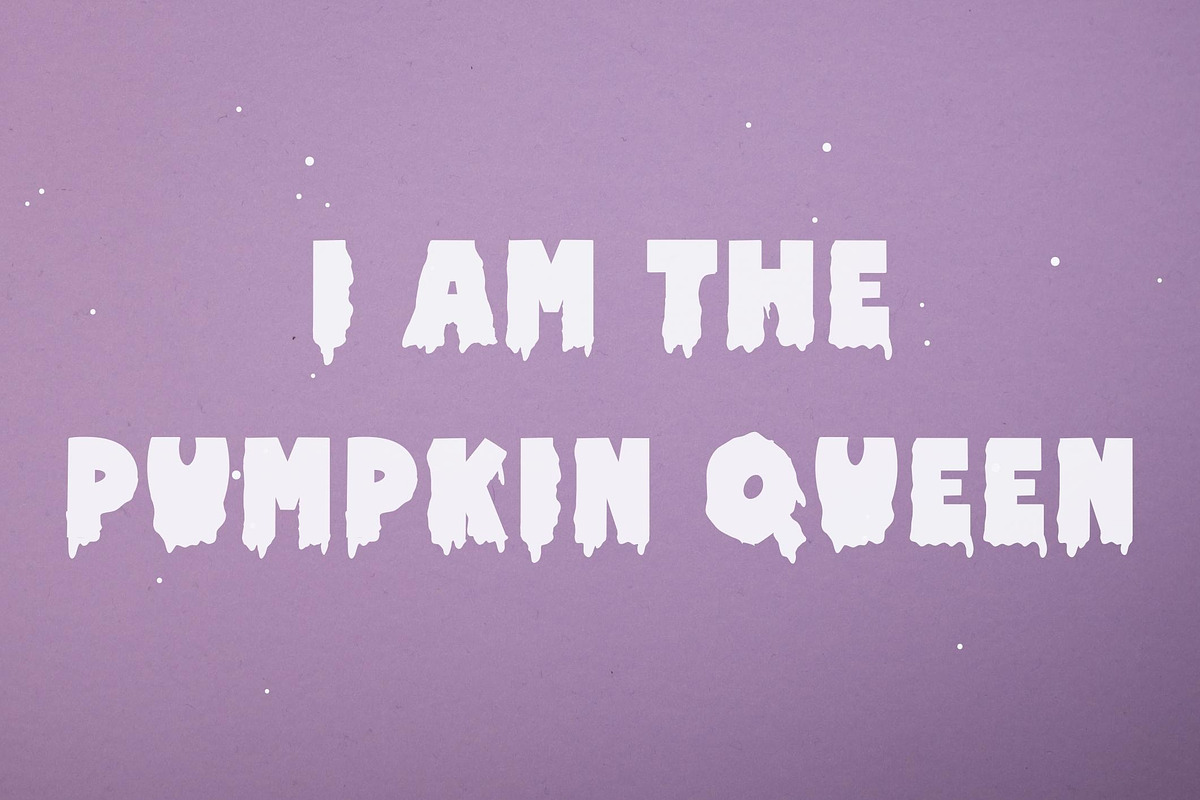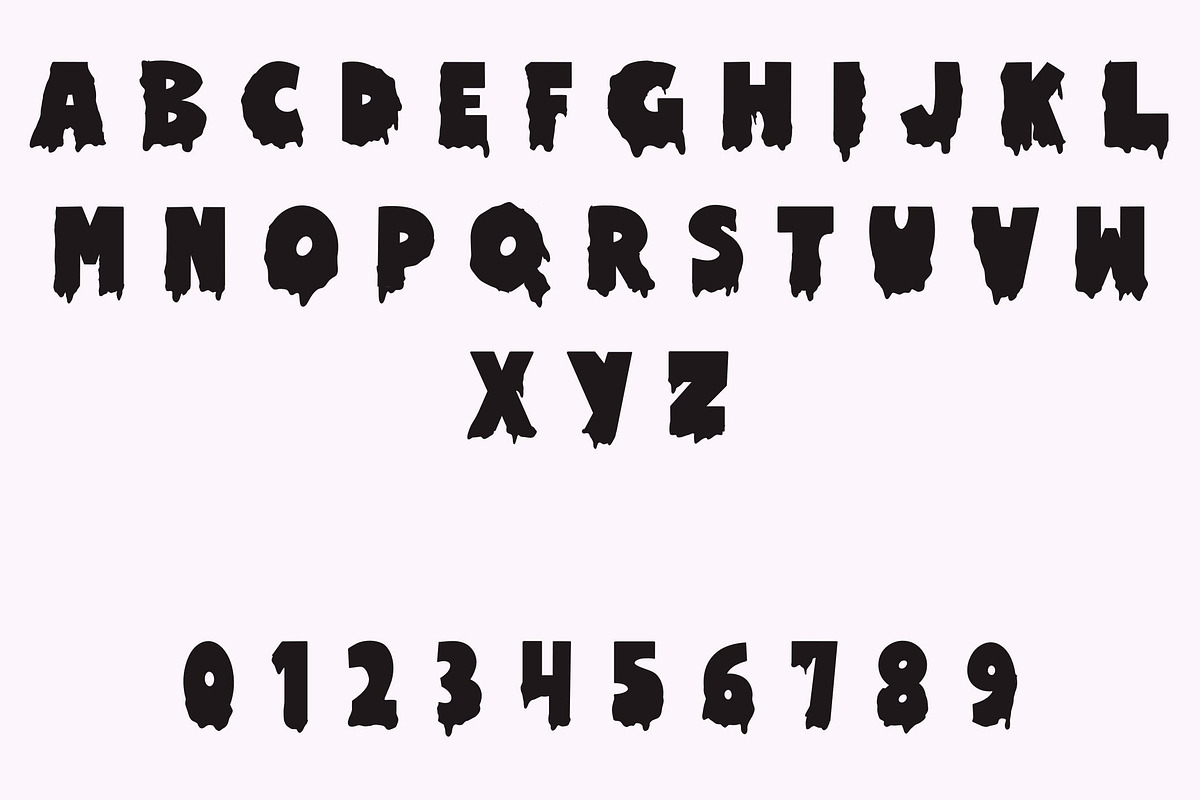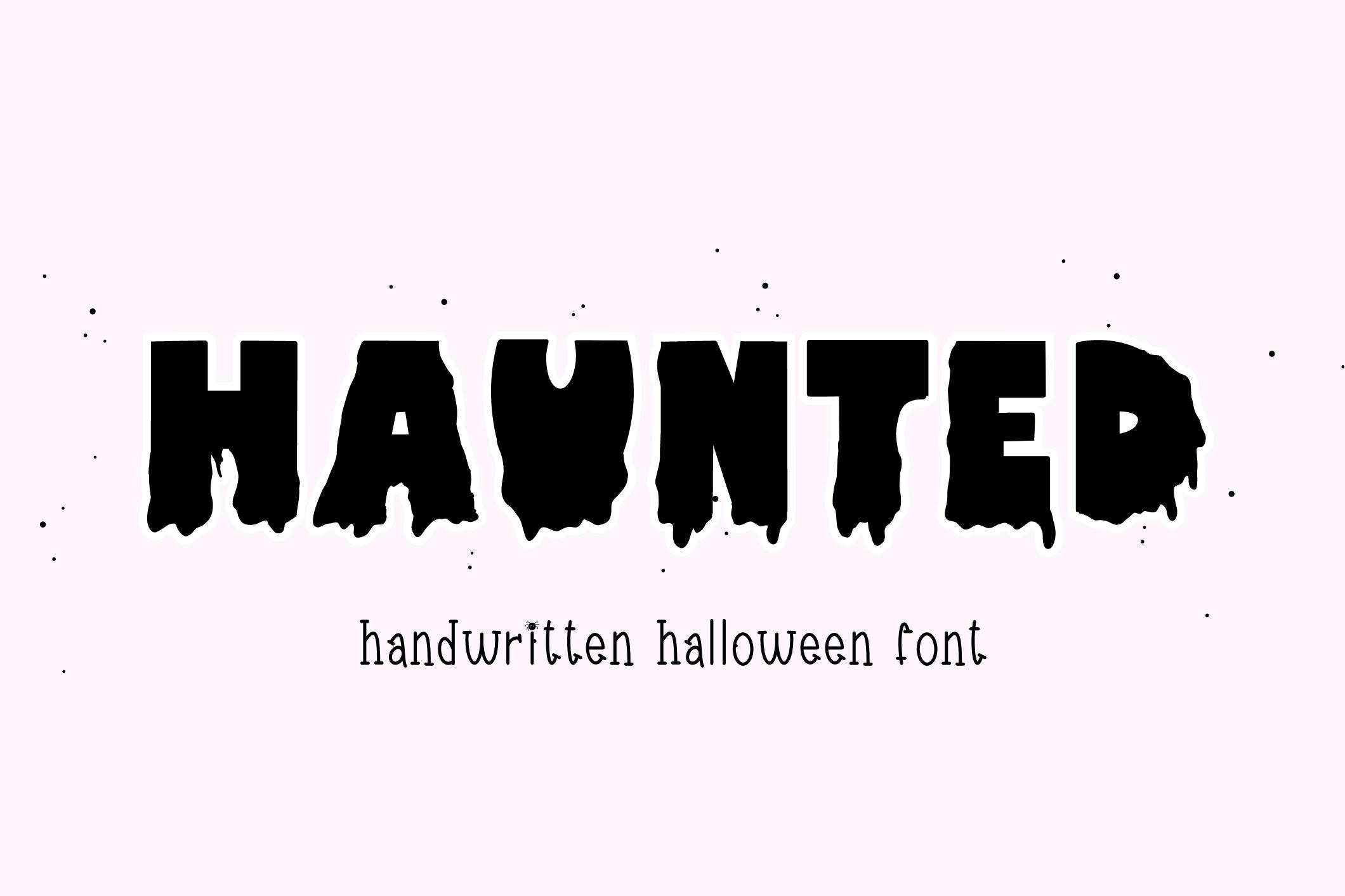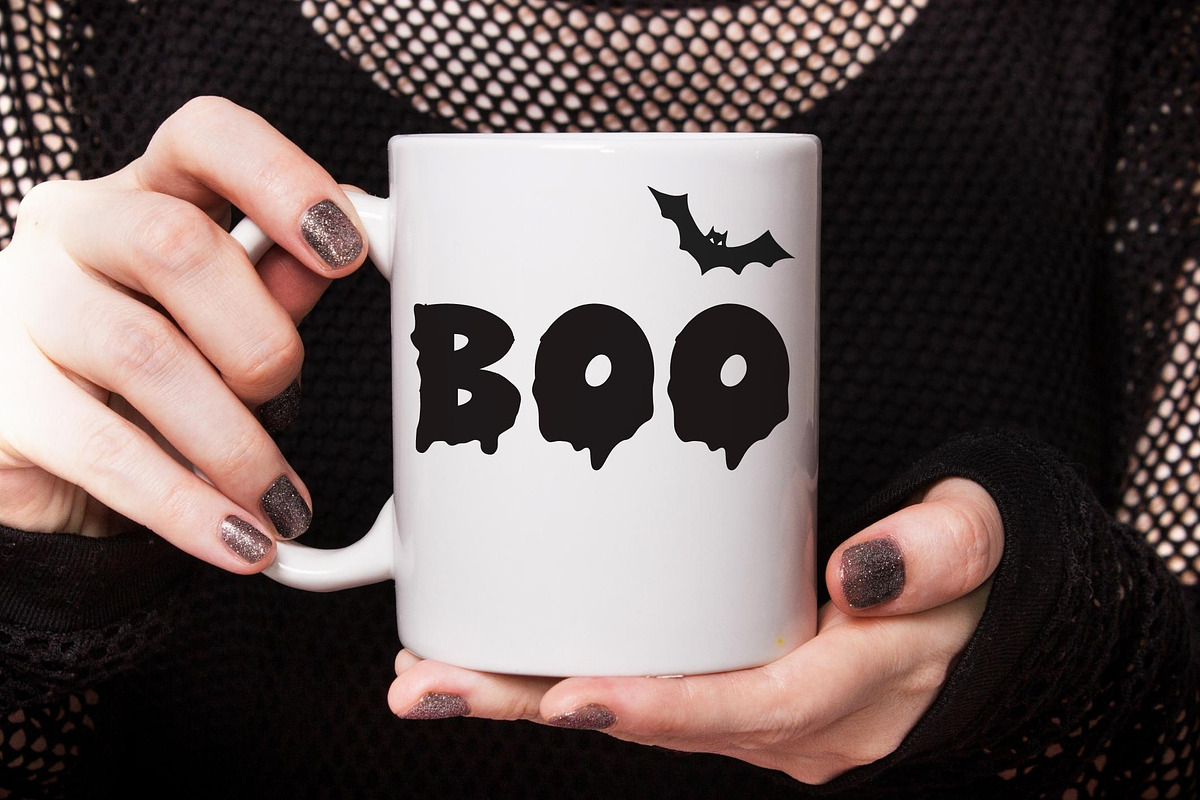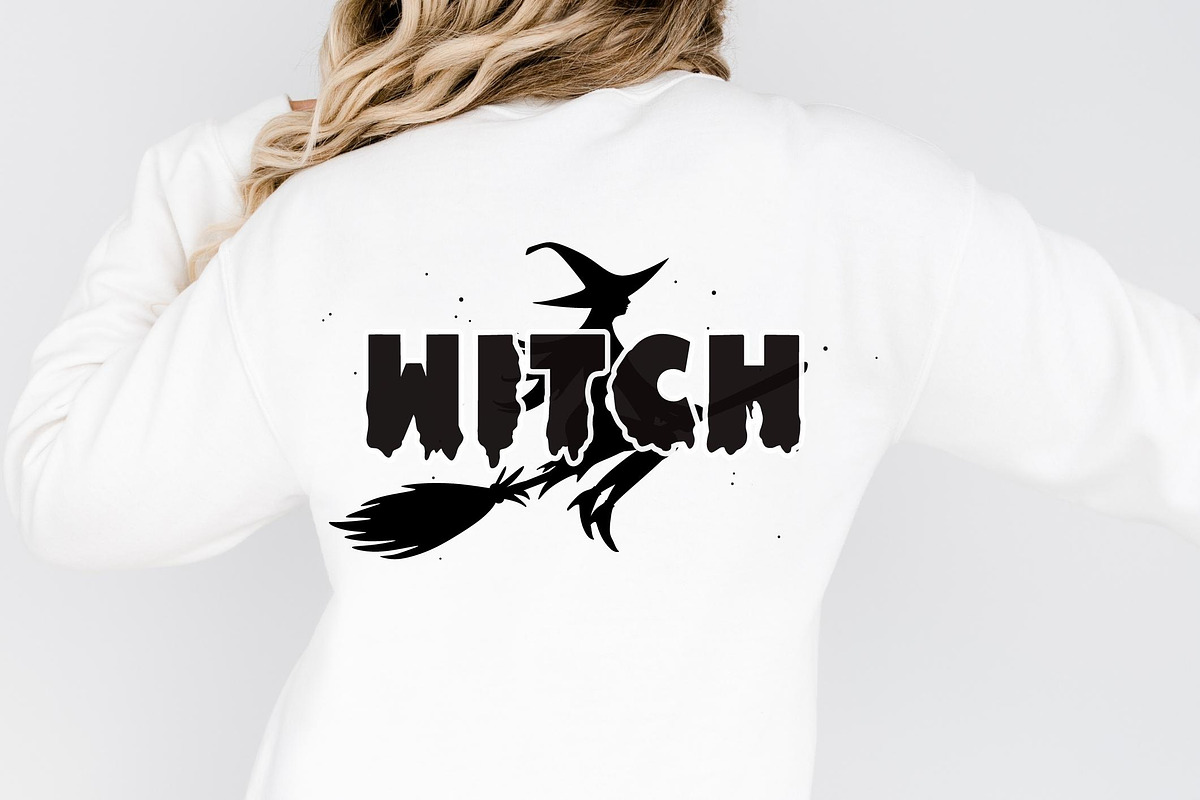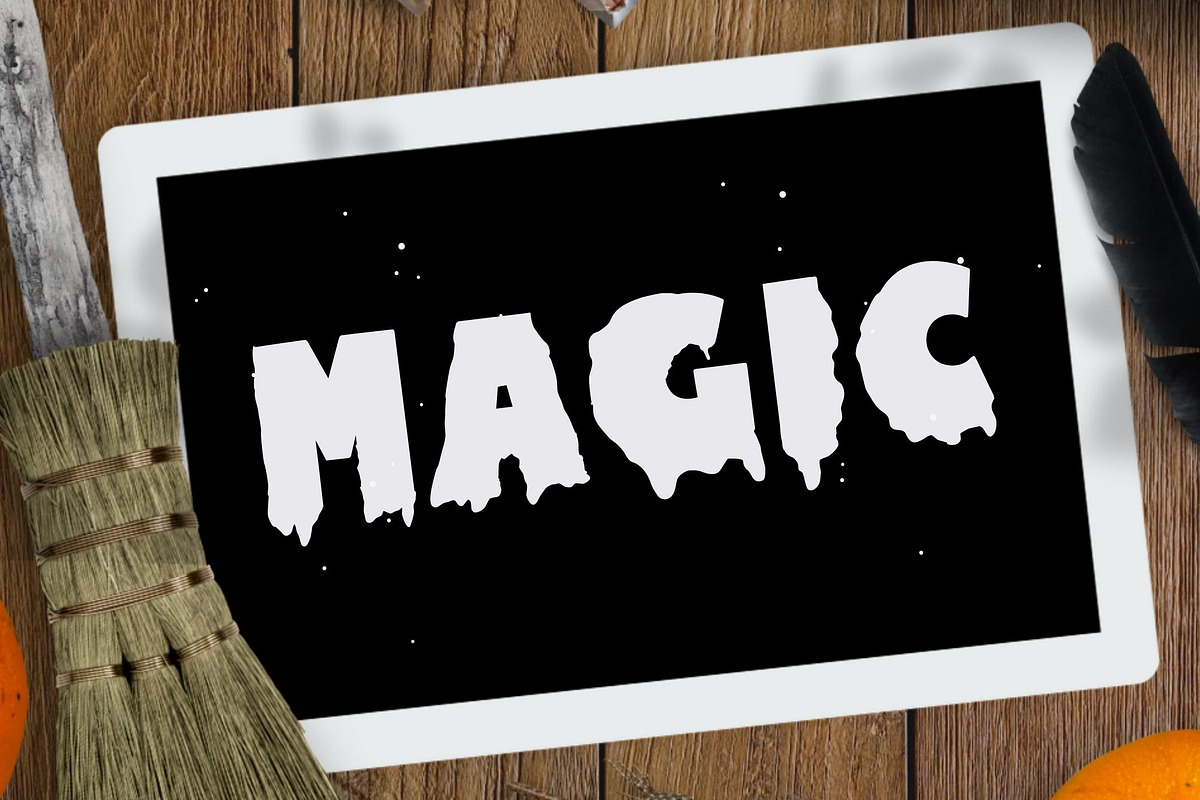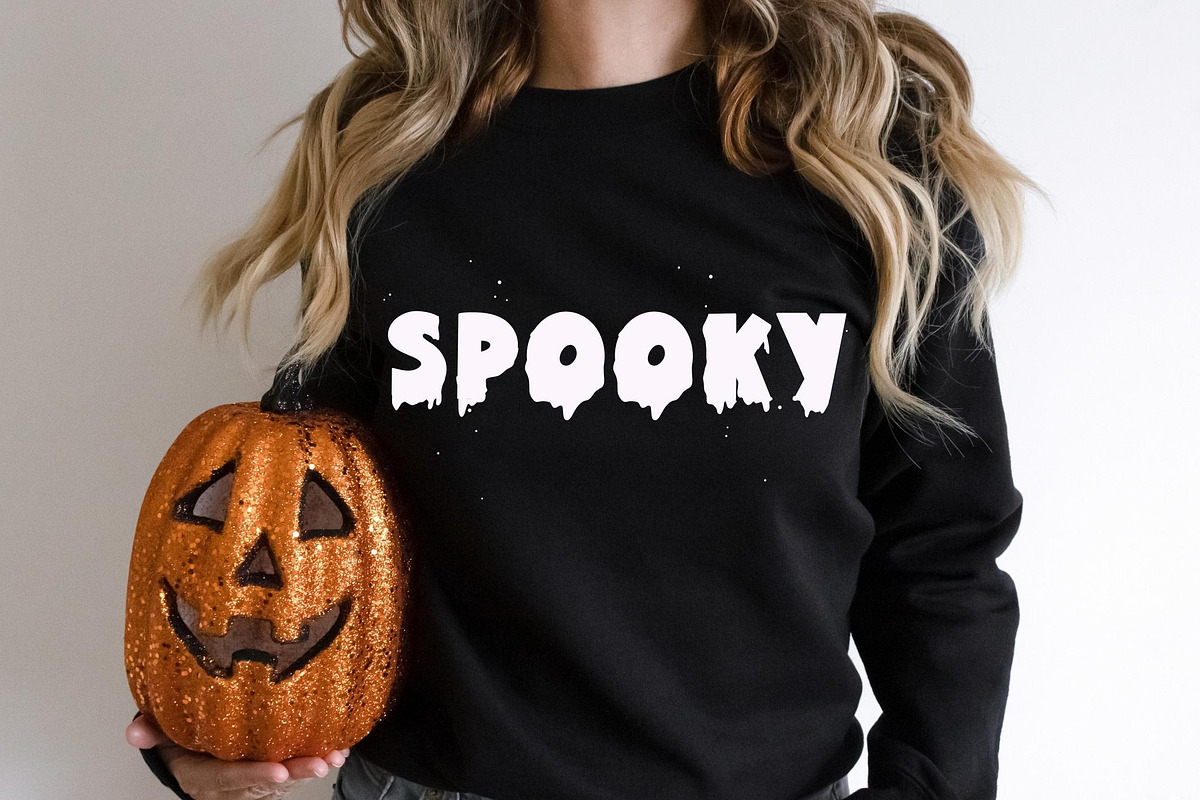
Haunted - Halloween font
It’s perfect for cricut projects, halloween shirts, svg designs, logos, invitations, halloween decor, procreate, greeting cards, posters, magazines, social media, stickers and more!